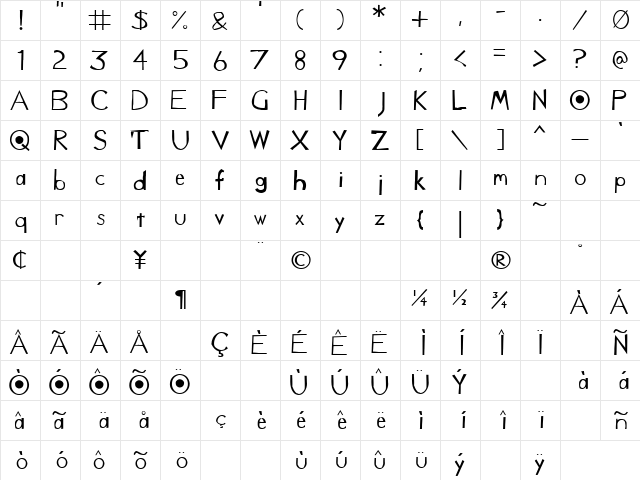
Caduceus Regular
Design Context for Caduceus Typeface
Caduceus offers clean, dependable letterforms without strong stylistic allegiance, making it a practical choice for designers who need flexibility.